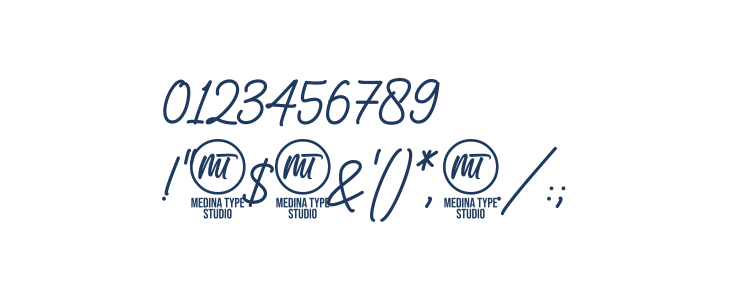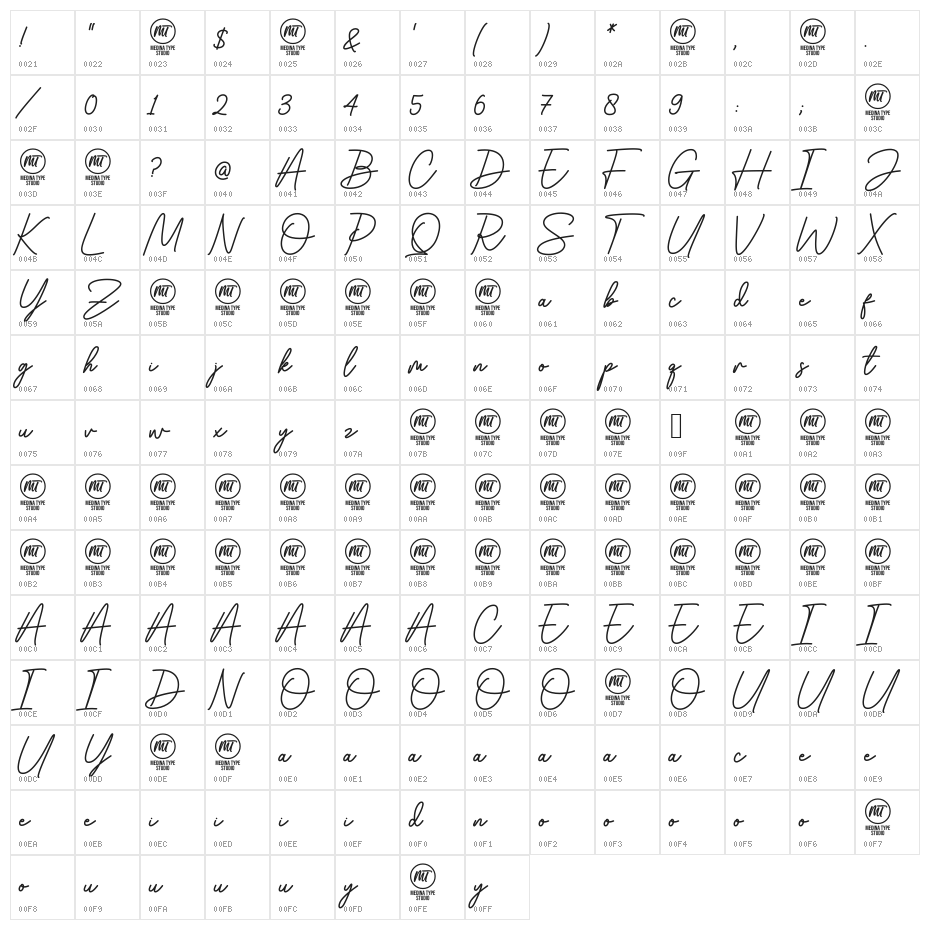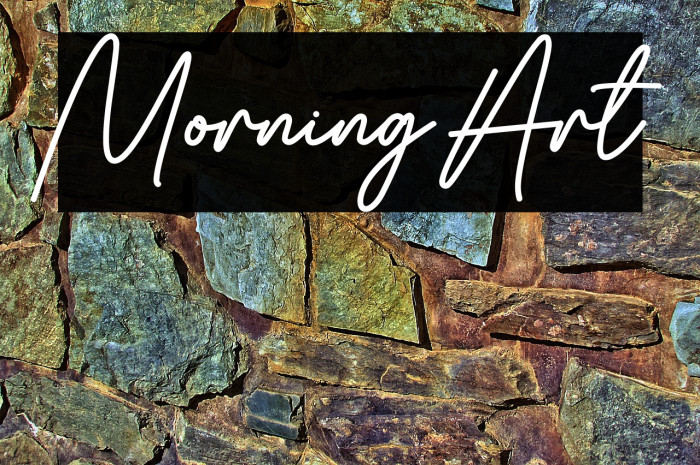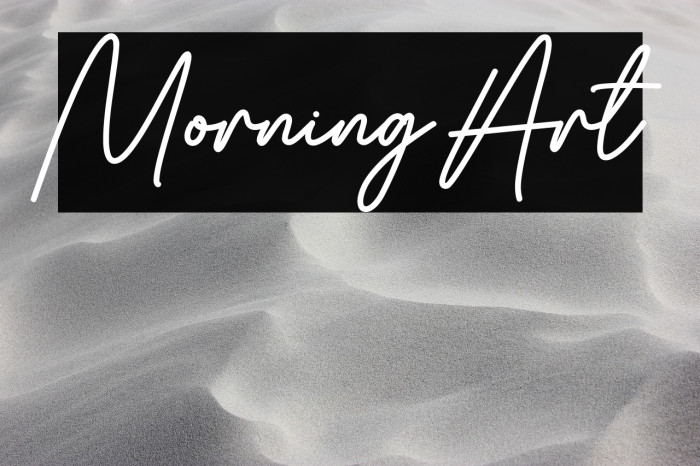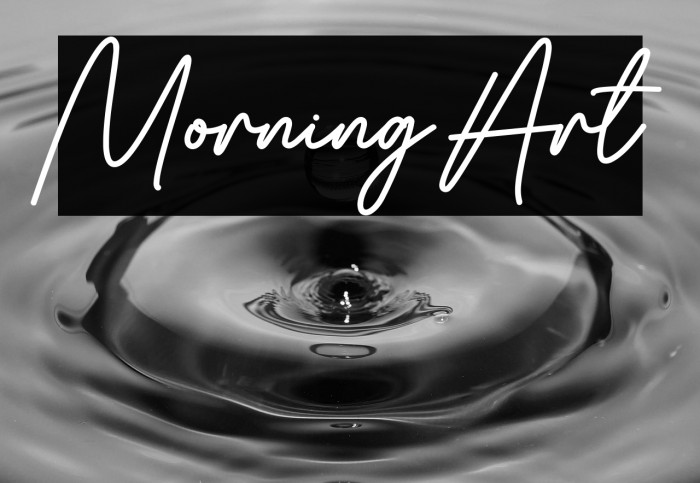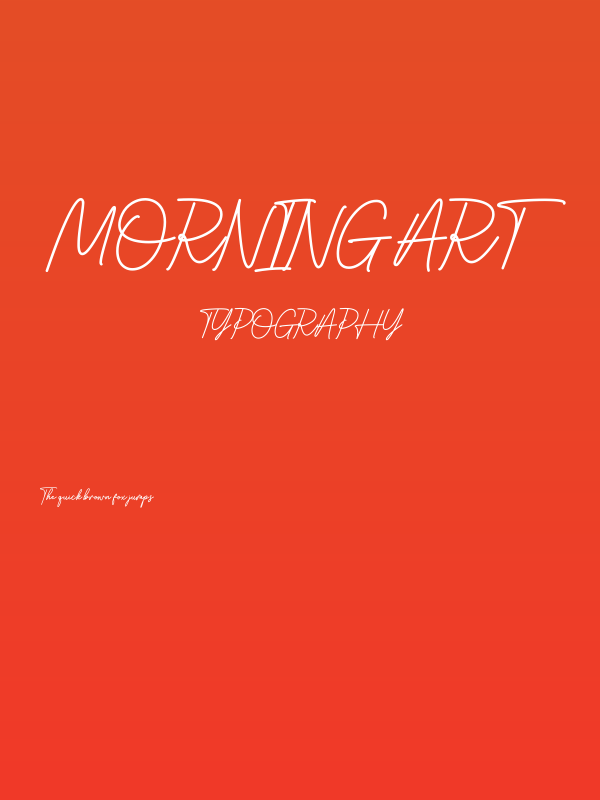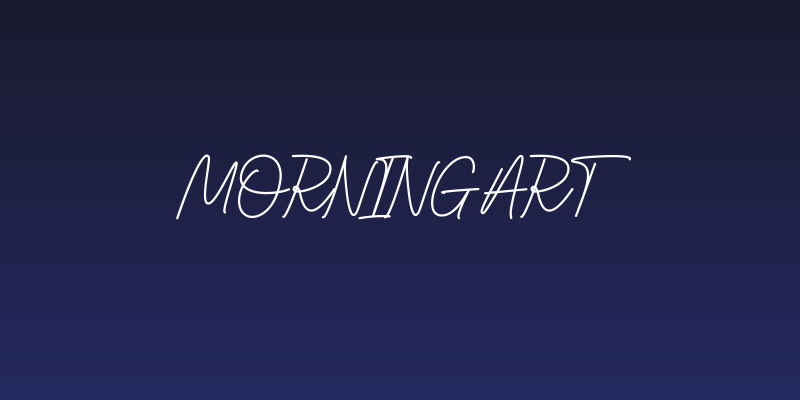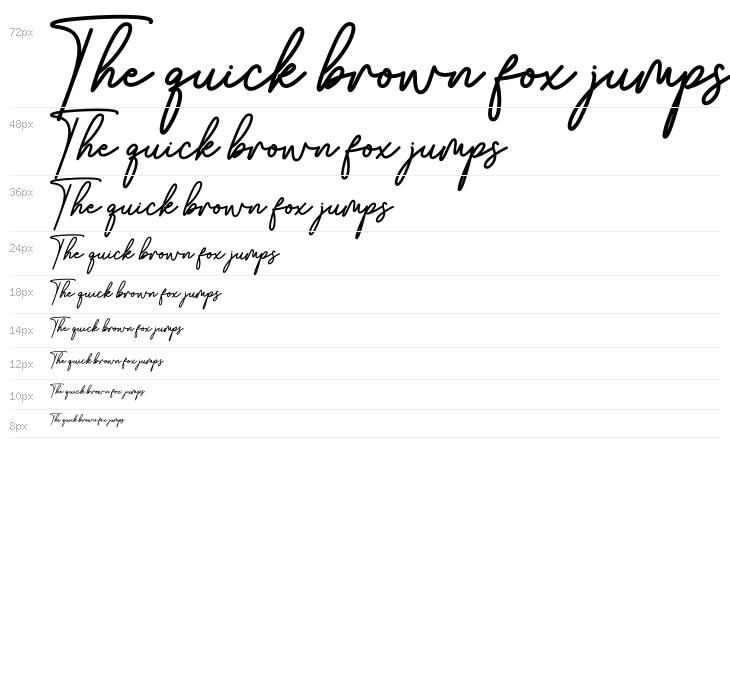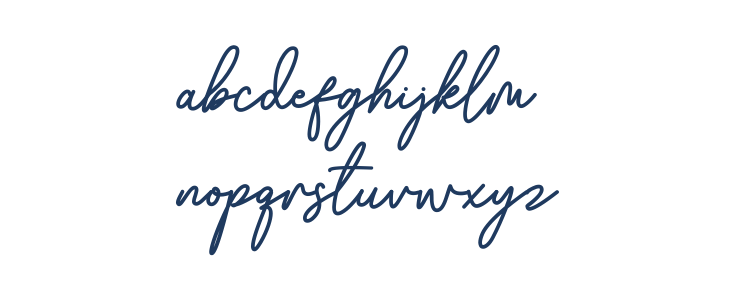
Morning Art Font
Morning Art Description
This font features a flowing, cursive style that exudes elegance and sophistication. The uppercase letters are tall and slender, with graceful loops and curves that give a sense of fluidity. The lowercase letters maintain a consistent slant, enhancing the script-like appearance. Numbers are designed with a similar cursive flair, ensuring a cohesive look across all characters. Special characters are seamlessly integrated, maintaining the overall aesthetic. The font's delicate strokes and smooth transitions make it ideal for projects that require a touch of class and refinement.
| Overall Style | Elegant, Sophisticated |
| Proposed Projects | Ideal for wedding invitations, elegant branding, personal signatures, and upscale product packaging. |